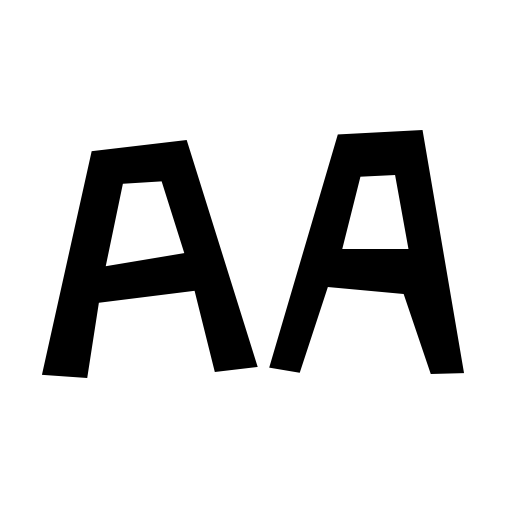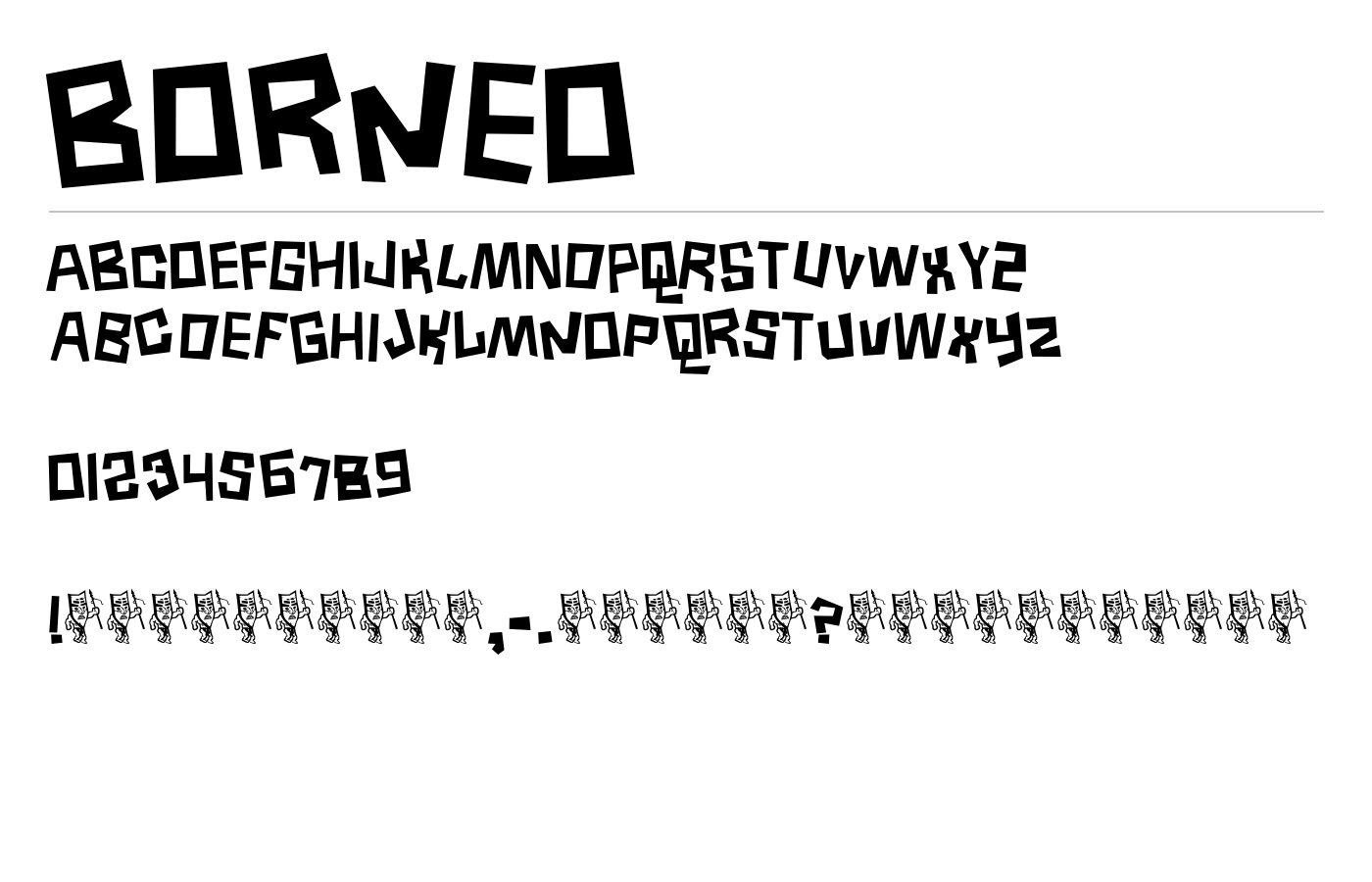
Borneo is a bold, angular sans serif font with a playful and slightly quirky character, featuring irregular, tilted letterforms that give it a dynamic and informal feel. Its strong, blocky shapes and uneven baseline create an energetic style perfect for eye-catching headlines, logos, and projects that want to convey fun and uniqueness. This font works especially well in creative and casual settings where a youthful, spirited vibe is desired.
Borneo Font